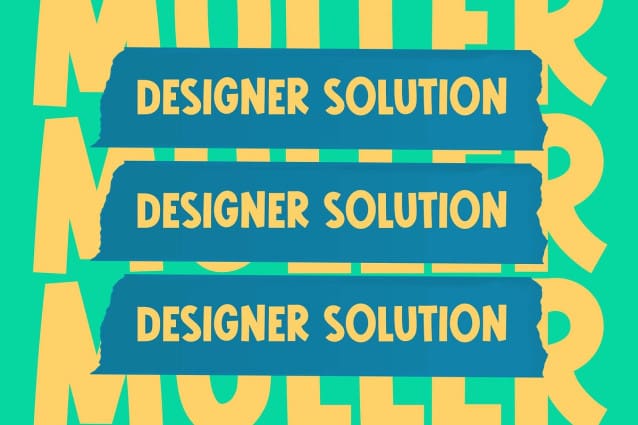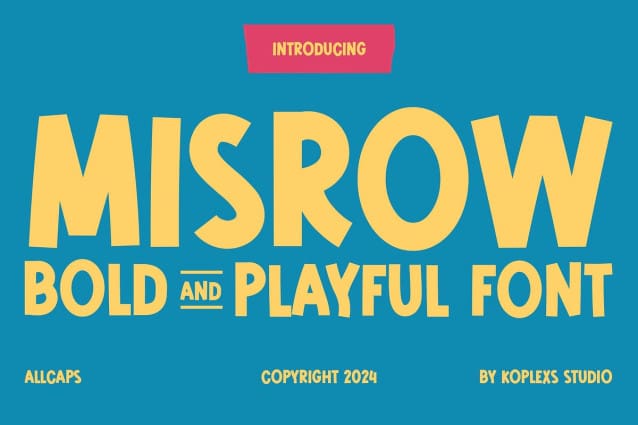
Misrow Playful Font
Misrow Playful Font – Sans Serif Display Font – Where Bold meets Playful in a harmonious dance of creativity! Elevate your design projects with this unique and versatile typeface that effortlessly balances sophistication with a dash of whimsy.
Unleash the power of Misrow Bold to infuse your creations with a distinctive personality. Its clean lines and bold strokes make a bold statement, while the playful nuances add a touch of charm that captures attention. Whether you’re working on branding, logos, headlines, or marketing materials, Misrow Bold ensures your message is conveyed with impact.
This font is not just a typeface; it’s a design companion that adapts seamlessly to various applications. From eye-catching social media graphics to attention-grabbing posters and packaging, Misrow Bold is your go-to choice for making a lasting impression. Elevate your website design, create memorable presentations, or add a touch of flair to your print materials – the possibilities are limitless.